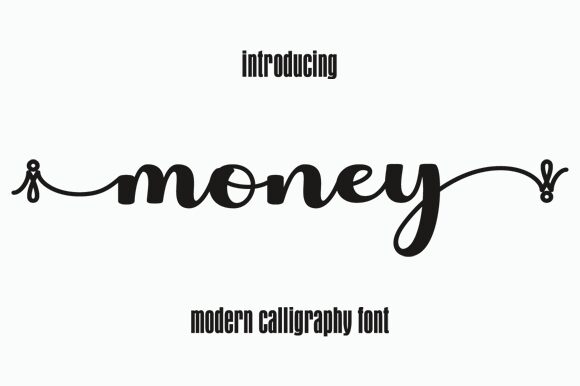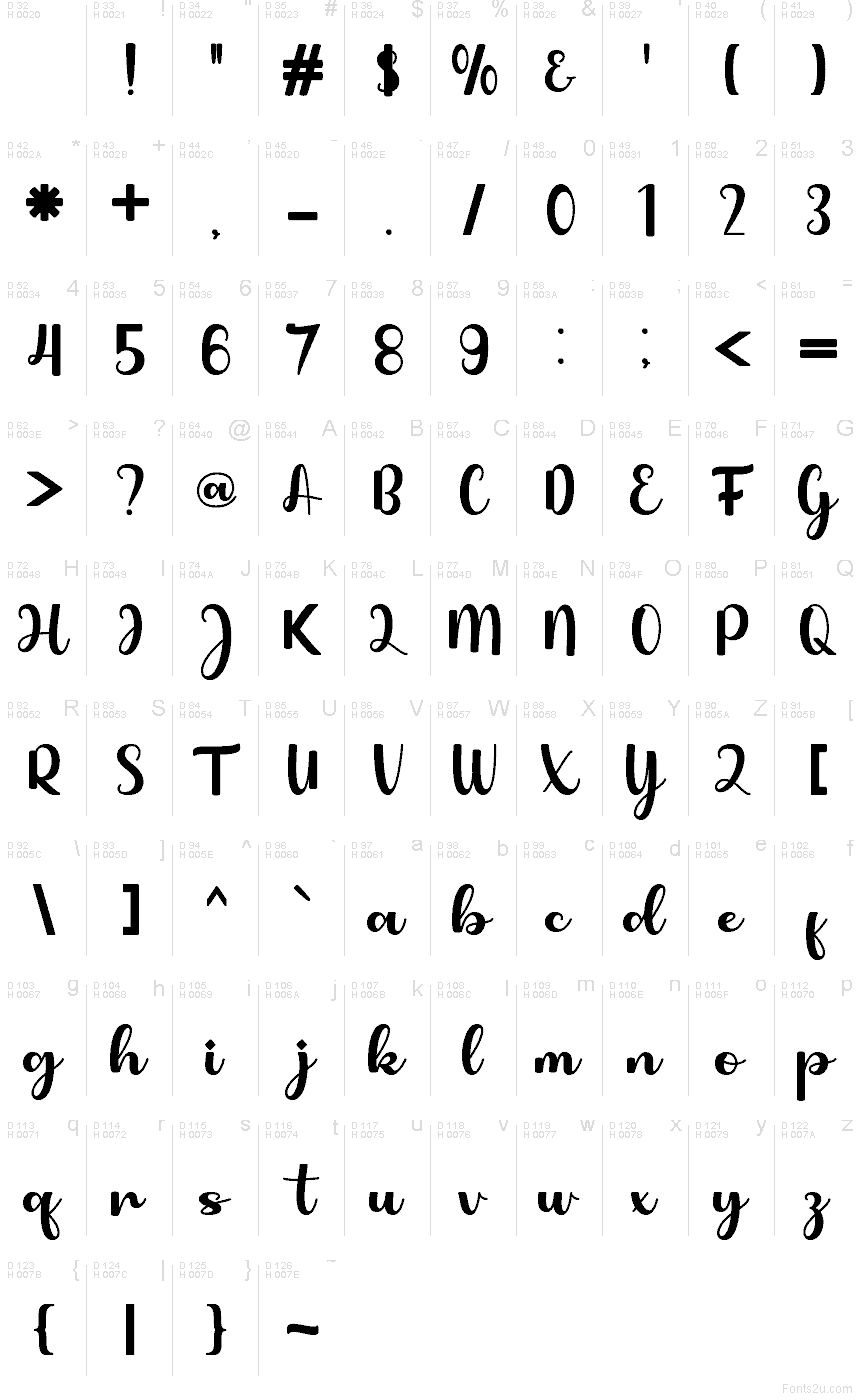
Money font by Cavalera Creative is a free handwritten script typeface with the ease of a quick signature and the punch of a bold logo mark. Thick, inky strokes swell at the start of each letter, then glide into smooth, looping endings, giving every word a confident, slightly playful flow. It feels like fresh marker on glossy paper-solid, dark, and expressive-making short phrases and names jump off the page.
Using Money for brand marks, product labels, quotes, Instagram graphics, invitations, merch, and boutique signage works beautifully, especially when you keep wording short and let the curves breathe. This free font pairs well with a clean geometric sans in small caps, so the script can carry the headline while the sans handles supporting text.